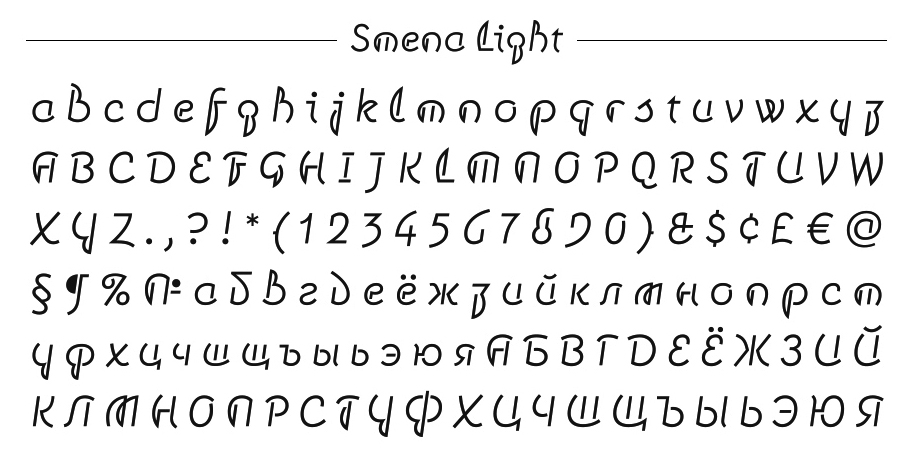
Vladimir Alexandrowitsch Pavlikov
Russian type designer and graphic artist (b. Kaluga, Russia, 1978) who won awards at Bukvaraz 2001 for Zentra and Quadrat Grotesk. He graduated from Kaluga Art School (1993) and Moscow Printing Institute (2000) and is based in Moscow. His typefaces:
• Quadrat Grotesk (2001, ParaType), and Quadrat Grotesk New (ParaType), which is based on old Russian wooden types that were used for placard display composition at large sizes.
• Flox (2000, ParaType) and Flox Rounded (2000, ParaType). Flex (2005) is a variation of Flox.
• Smena (2006, ParaType). A 1940s advertising family originally designed in 1999-2001. Smena was awarded at the TypeArt (Moscow) type design competition in 2001.
• The Cyrillic version of AdLib at ParaType in 1999. The original is by Freeman Craw, 1961, ATF.
• The Pi font Zentra (2000). This typeface was a winner at the TDC2 2001 competition (Type Directors Club).
• Dotage (2004, ParaType). A pixel family that features Shadow Left and Shadow Right sub-styles.
• At Paratype, he did cyrillizations of fonts such as Ad Lib, FF Confidential, FF Dynamoe, FF Karton and FF OCR-F (with Tagir Safaev, 1999-2001).
• The custom typeface Ruflex (2004).
• In 2011, he co-designed Rationale One with Alexei Vanyashin and Olexa Volochay.
• Lumiere (2012) is a custom typeface designed exclusively for Hollywood Reporter magazine's Russian edition. It was art-directed by Anton Aleynikov. It is based on The Font Bureau typeface Vonness Bold Compressed by David Berlow.